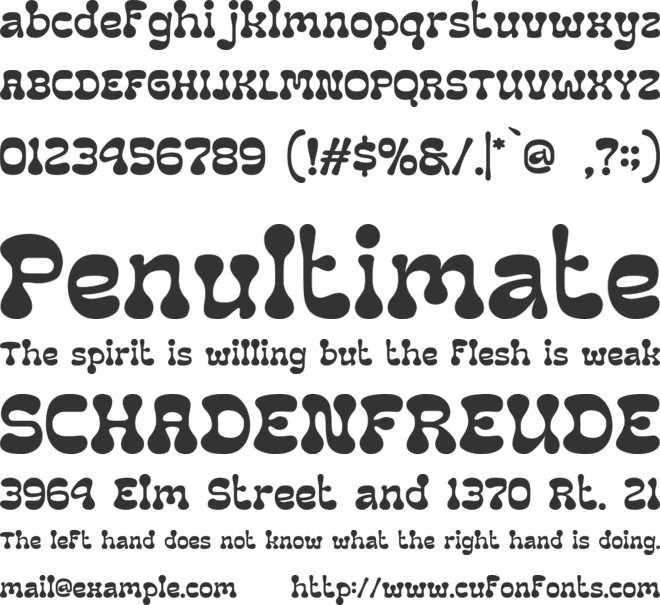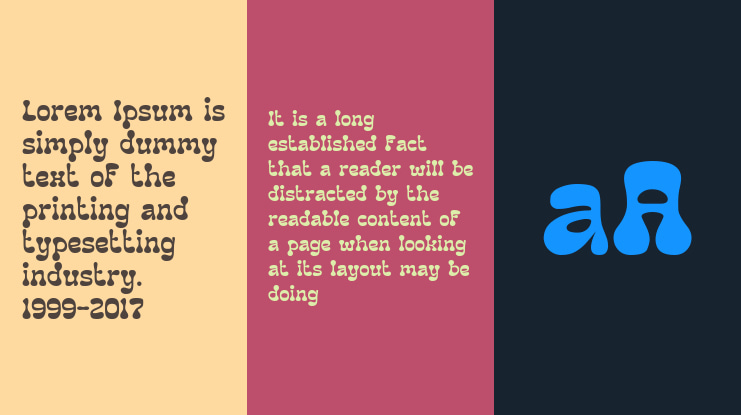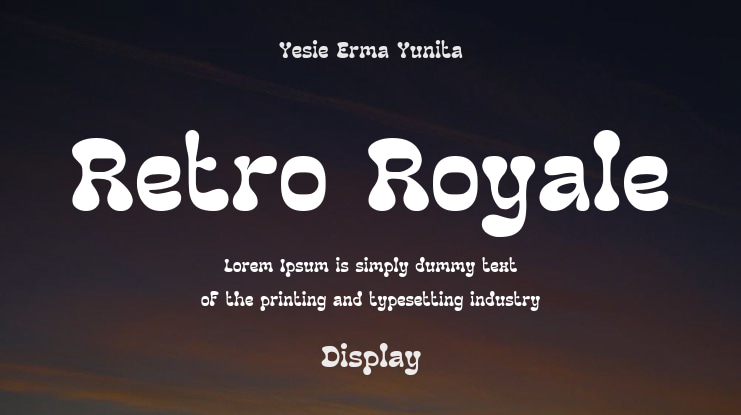
Step back in time with Retro Royale - Retro Font, a bold and groovy typeface inspired by the vibrant 70s era. This bubble-style display font features thick, rounded letterforms with fluid, organic curves that evoke a nostalgic yet playful feel. Its bold and wavy shapes bring a sense of movement, making it a standout choice for designs that need a vintage, psychedelic, or funky aesthetic. The background complements the retro vibe with a colorful, swirling pattern in warm tones of yellow, red, blue, and orange, layered with a distressed texture to add an authentic aged look. The thick, decorative outline around the text further enhances the retro style, giving it a classic 70s poster feel. Whether you're designing music festival posters, T-shirts, stickers, or branding with a vintage edge, Retro Royale delivers the perfect mix of boldness and nostalgia.
This versatile retro font is ideal for logos, branding, packaging, magazine covers, album artwork, greeting cards, and movie titles. The font’s groovy, bubbly aesthetic makes it a fantastic choice for fashion brands, social media graphics, or any project needing a funky, throwback feel. The playful yet strong letterforms create high readability while still exuding a distinctive personality, making it perfect for both digital and print designs. If you’re looking for a font that captures the spirit of the 70s with a bold, psychedelic twist, Retro Royale is the perfect choice. Get ready to bring vintage vibes and funky energy to your next creative project!